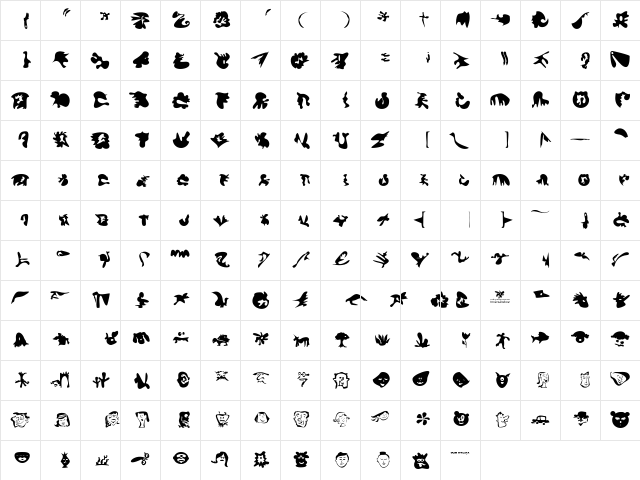
formfeelings Regular
| Foundry | irma uniquesparrow sanchez |
| Designer | irma uniquesparrow sanchez |
Design Context for formfeelings Typeface
formfeelings is a composed and adaptable typeface that performs quietly and consistently across a wide range of design contexts.